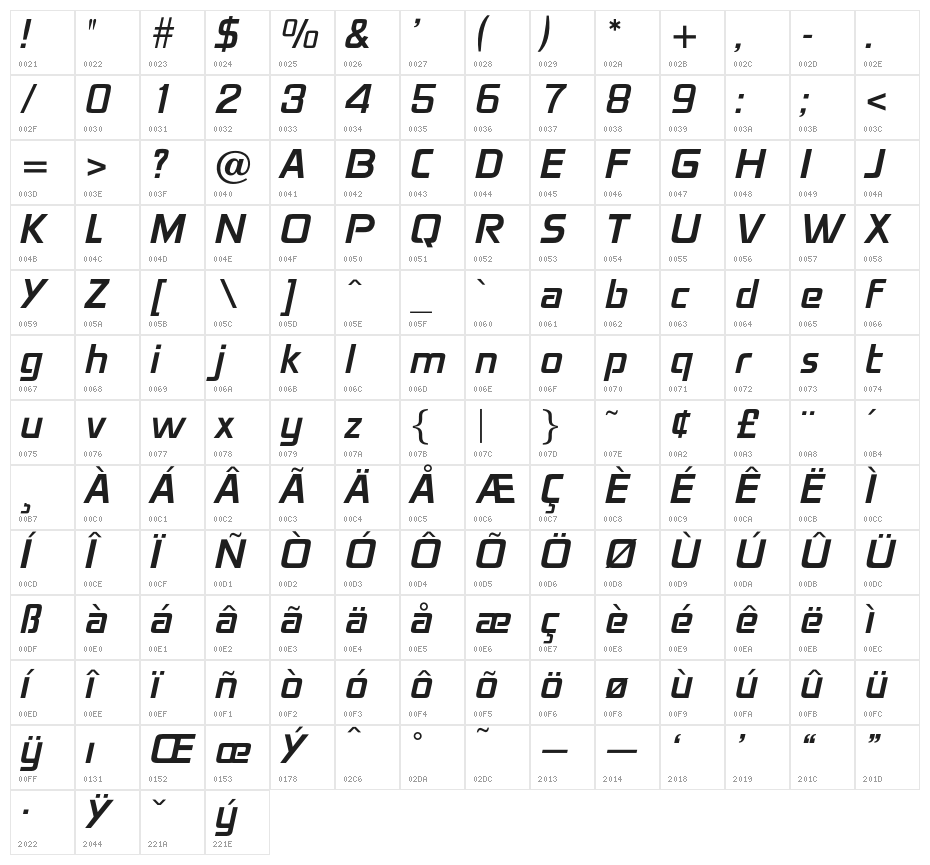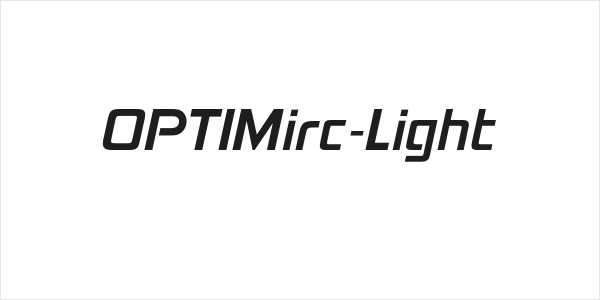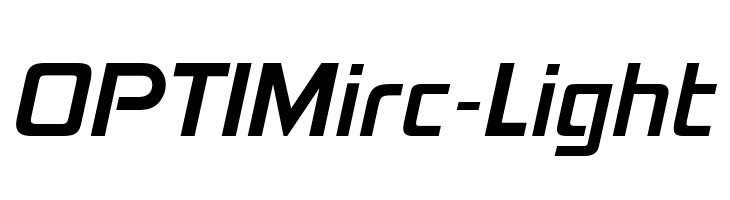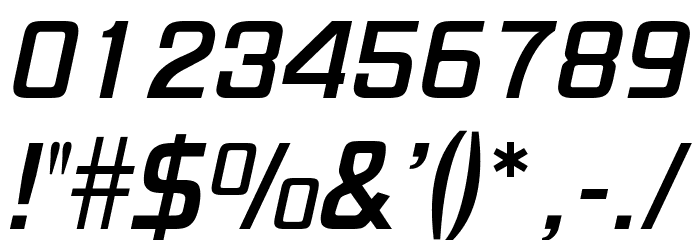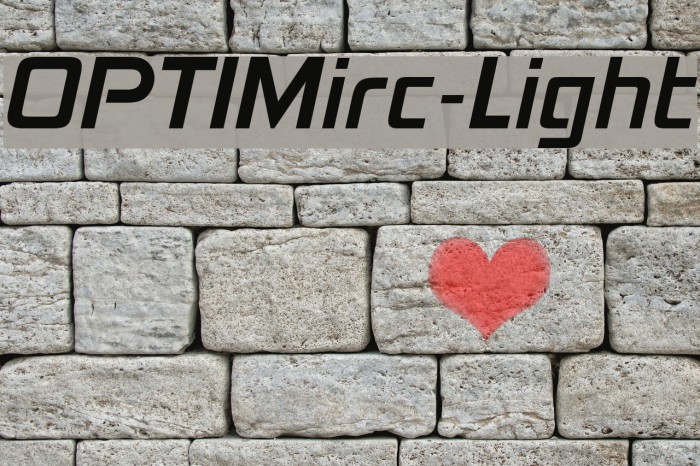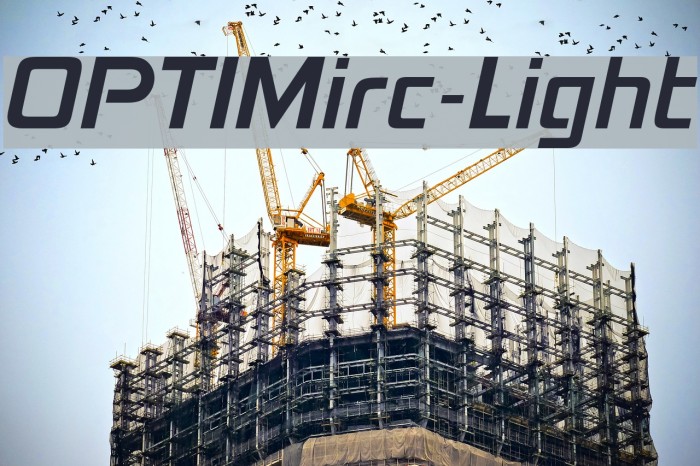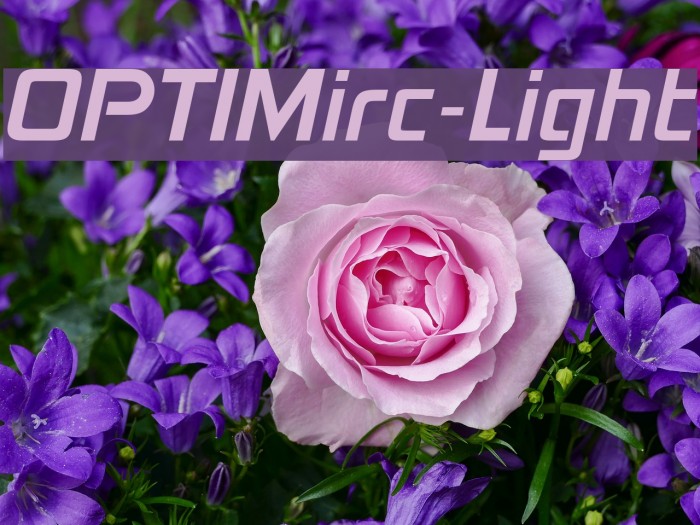
OPTIMirc-Light Font
OPTIMirc-Light Description
This font features a modern, sleek design with a slightly italicized style that gives it a dynamic and forward-moving appearance. The characters are uniformly structured with a consistent stroke width, contributing to a clean and professional look. The uppercase letters are bold and assertive, while the lowercase letters maintain a smooth and cohesive flow. The numerals are clear and distinct, making them easily readable. Special characters are well-integrated, maintaining the overall aesthetic. This font is versatile, suitable for both digital and print media, and can be used effectively in various design contexts.
| Use Case | Headlines, Body text, Logos |
| Proposed Projects | Ideal for branding, advertising, digital interfaces, and editorial design. |